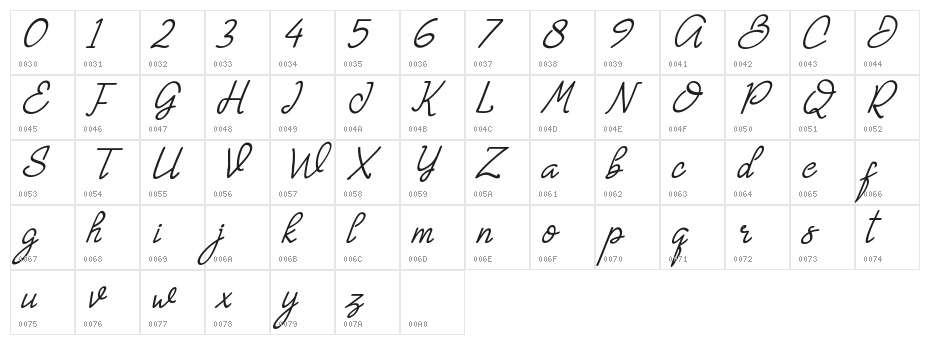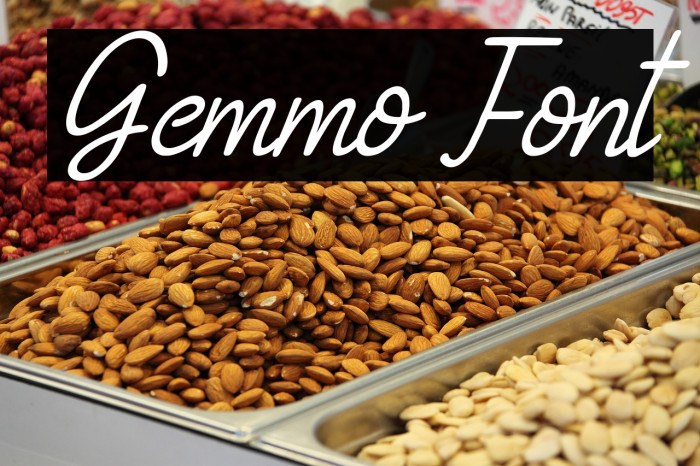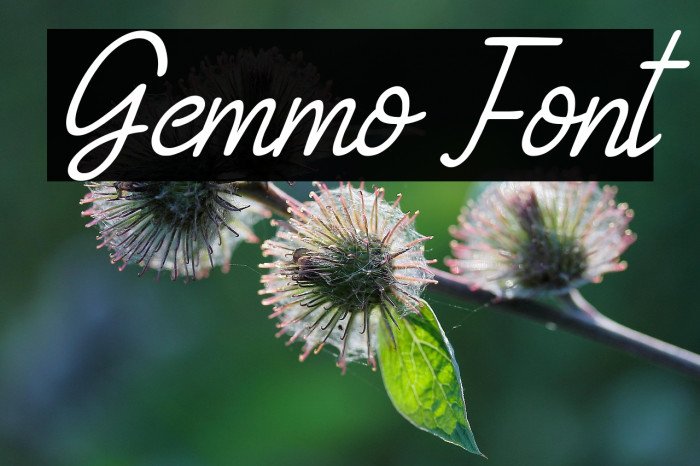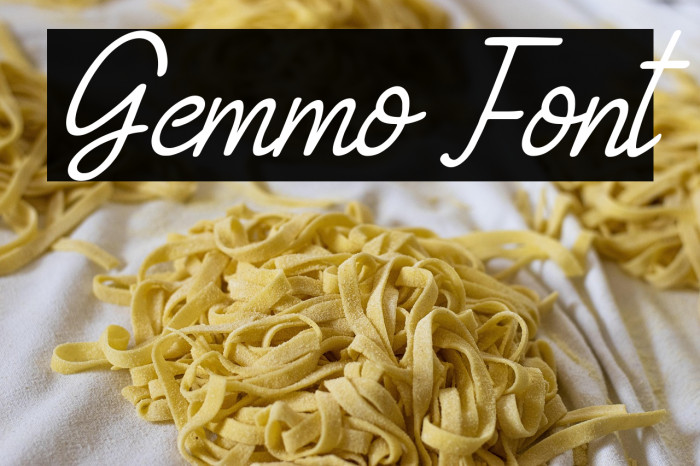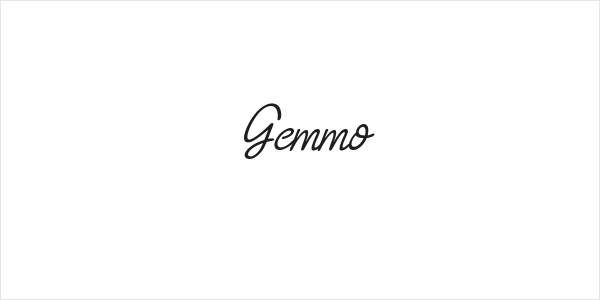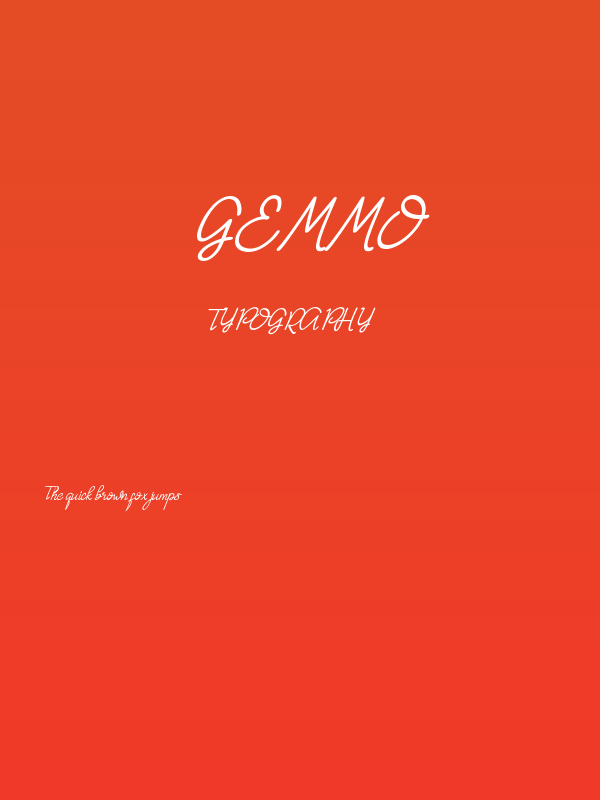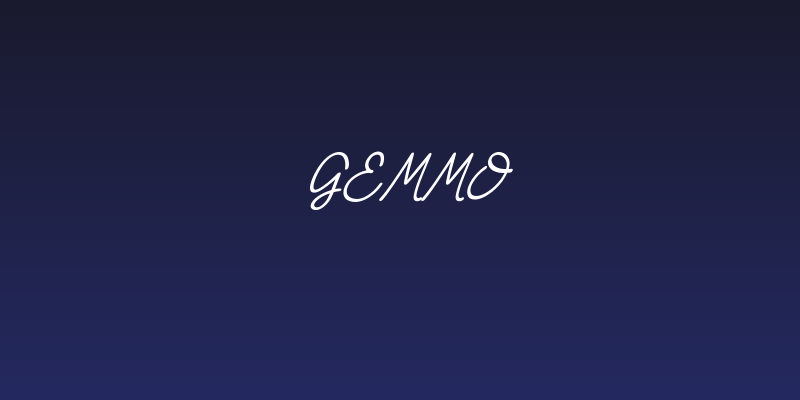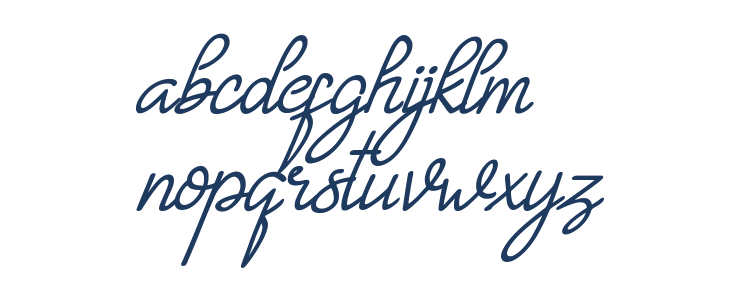
Gemmo Font
Gemmo Description
This font exudes a sense of elegance and fluidity, characterized by its cursive script style. The letters are interconnected, creating a seamless flow that mimics natural handwriting. The strokes are smooth and consistent, with a slight slant that adds to its graceful appearance. The uppercase letters are distinct and slightly larger, providing a nice contrast to the more compact lowercase letters. Numbers and special characters maintain the same fluid style, ensuring uniformity across all characters. This font is ideal for projects that require a personal touch, such as invitations, greeting cards, or branding materials that aim to convey sophistication and warmth.
| Overall Style | Elegant |
| Use Case | Logos, Invitations, Personal Branding |
| Proposed Projects | Ideal for wedding invitations, personal branding, greeting cards, and elegant signage. |